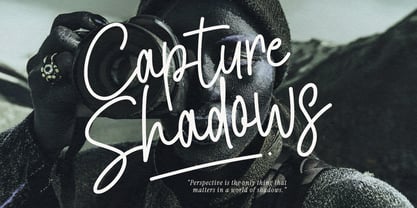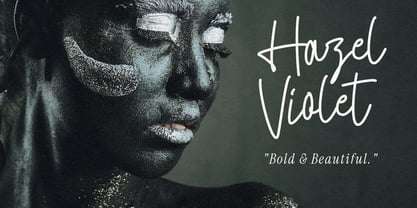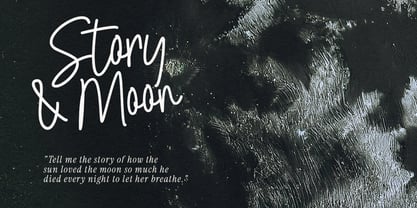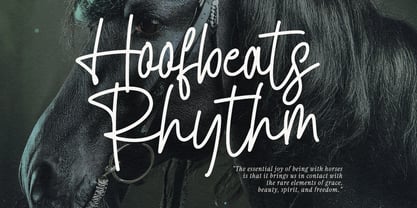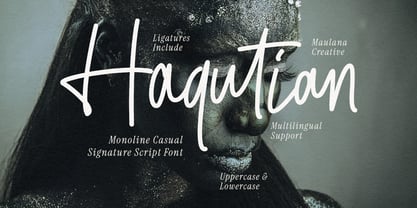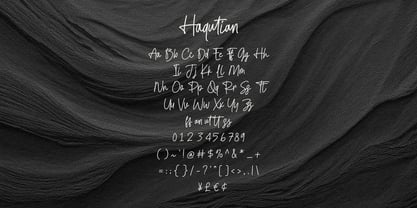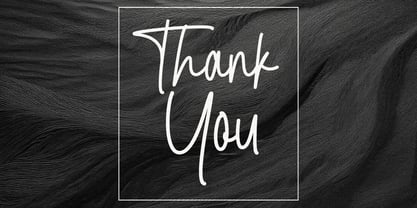
MC Haqutian
by Maulana Creative
The MC Haqutian Font Family was designed by Gilang Maulana and published by Maulana Creative. MC Haqutian contains 1 styles. More about this family
Haqutian is a monoline script font that effortlessly blends the elegance of natural handwriting with a modern, laid-back vibe. Designed with fluid strokes and a consistent weight, this font delivers a personal, authentic, and exclusive feel—reminiscent of a signature penned with a high-end fineliner. Haqutian stands out through its "casual-chic" aesthetic. With its uniform line thickness (monoline), the font offers excellent legibility while maintaining a strong artistic character. Every curve and connection is meticulously crafted to mimic the natural rhythm of human writing, providing a warm and organic touch to any digital canvas.
Designers: Gilang Maulana
Foundry: Maulana Creative